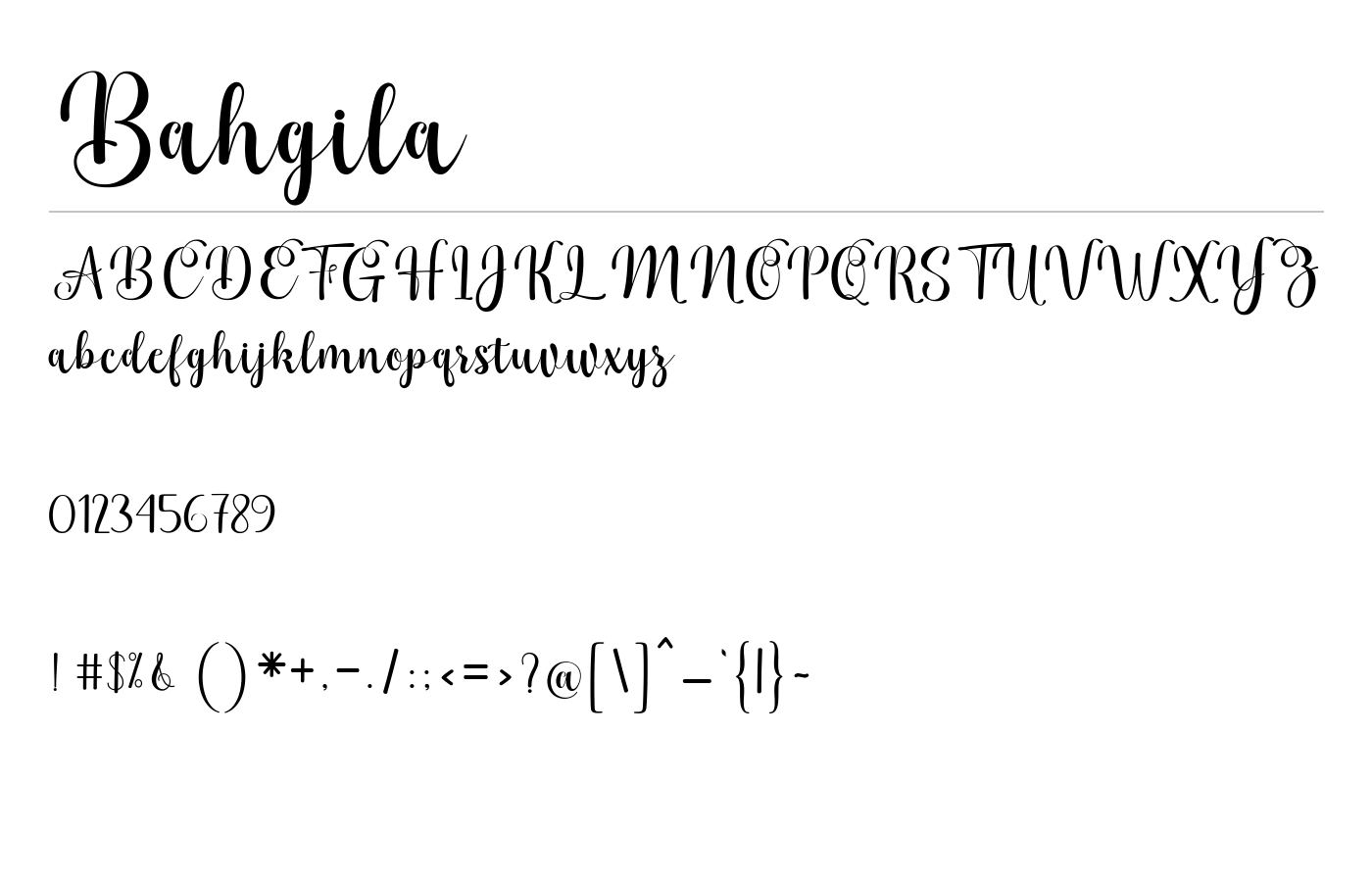
Bahgila is a delicate script font featuring elegant, flowing letterforms with high contrast and thin, graceful strokes. Its ornate uppercase letters paired with smoother lowercase glyphs create a stylish, feminine feel perfect for invitations, branding, and editorial use. This font works best where a sophisticated, romantic touch is desired, adding charm and refinement to headlines or logos.
Bahgila Font
About Bahgila Font